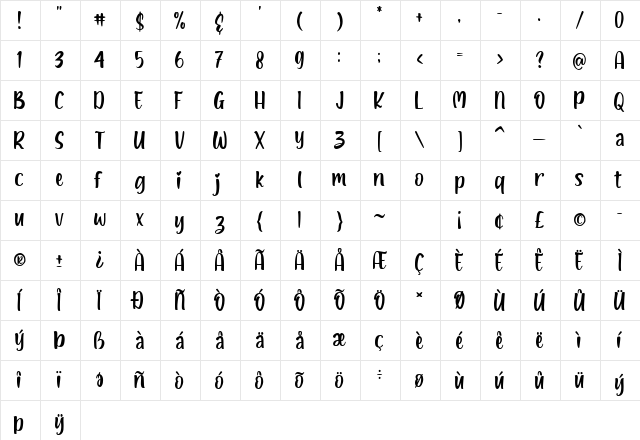
Lovely Kids Regular
| Designer | Stringlabs. 2020 |
Design Context for Lovely Kids Typeface
Lovely Kids has an approachable, lighthearted character — its loose, expressive forms are well-suited to children's content, casual branding, and fun-first design.
Well-suited to food and beverage brands with personality, educational materials, and fun-forward identities.
Font Pairing: Pairs well with a rounded or humanist sans for body copy, maintaining the friendly tone without relying on Lovely Kids to carry extended reading.
Pro Tip: Use Lovely Kids at larger display sizes where its expressive character can land. Pair with a clean, simple sans for body copy to maintain readability.